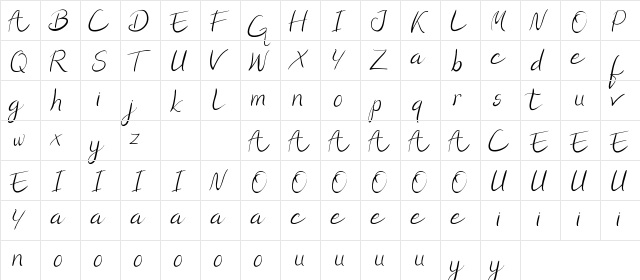
Greentler Demo Regular
| Foundry | Edric Studio |
| Designer | Aghnia Nurul Yasimine & Suci Anita |
Design Context for Greentler Demo Typeface
Greentler Demo offers clean, dependable letterforms without strong stylistic allegiance, making it a practical choice for designers who need flexibility.